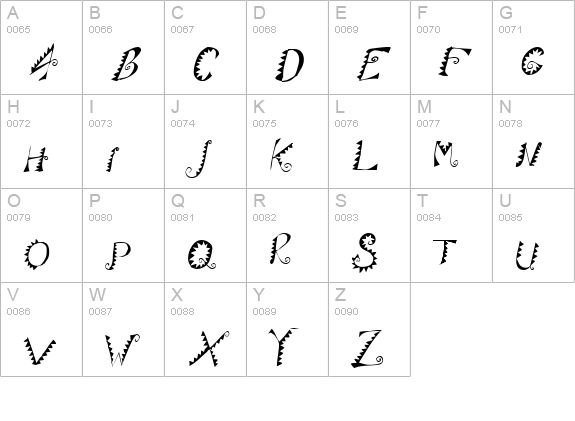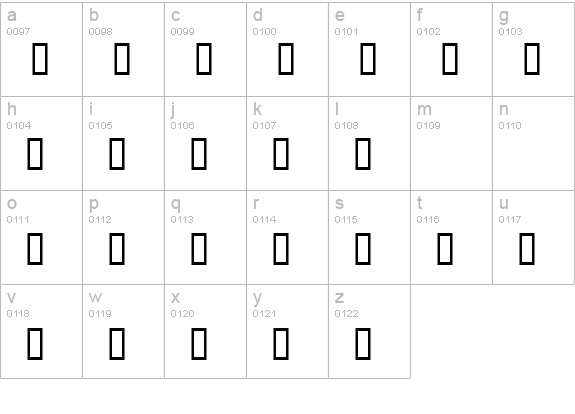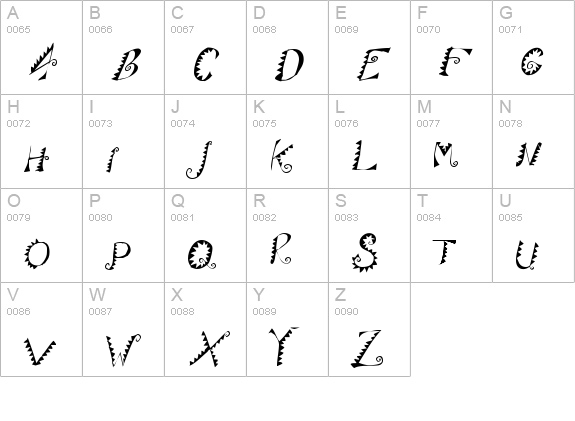
Alligator Puree Font Details
Introducing Alligator Puree font – a striking display typeface with a unique blend of sleek lines and bold shapes that exude modern sophistication. This font is perfect for making a statement in your design projects, whether it be for branding, headlines, posters, or social media graphics. Alligator Puree font offers a seamless balance between elegance and edge, making it versatile for a wide range of creative applications. Its distinctive style will surely capture attention and add a touch of flair to any project. Best of all, Alligator Puree font is completely free to download at FontsMarket.com, where you can easily access this stunning typeface and elevate your designs with its dynamic appeal. Don't miss out on the opportunity to enhance your visual creations with the sleek and captivating Alligator Puree font!